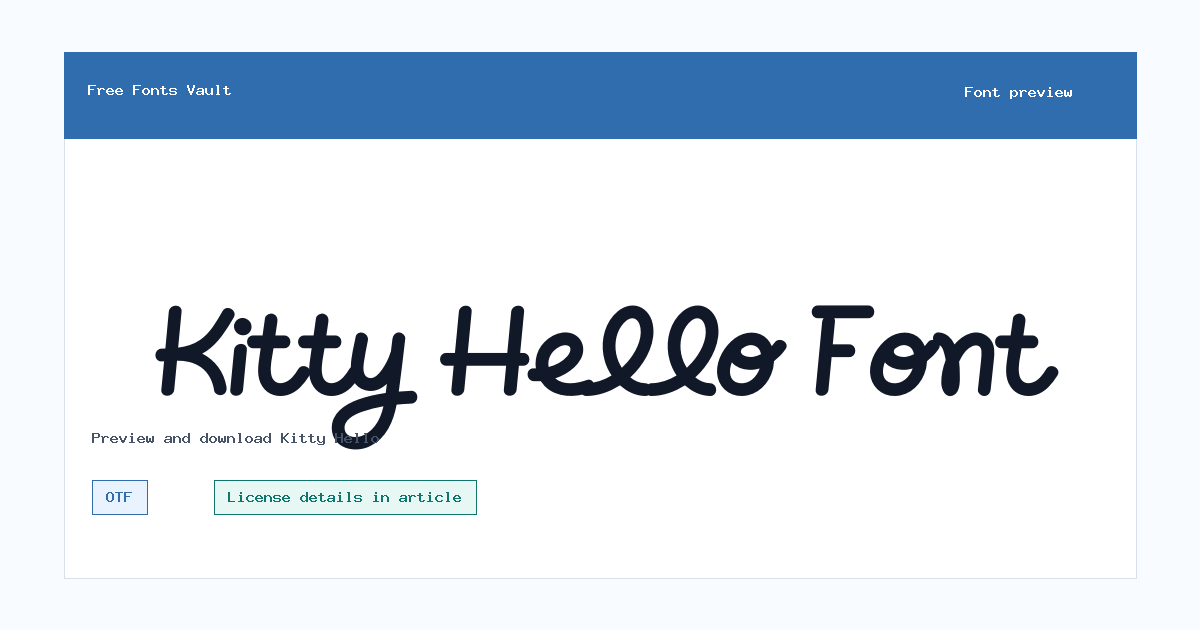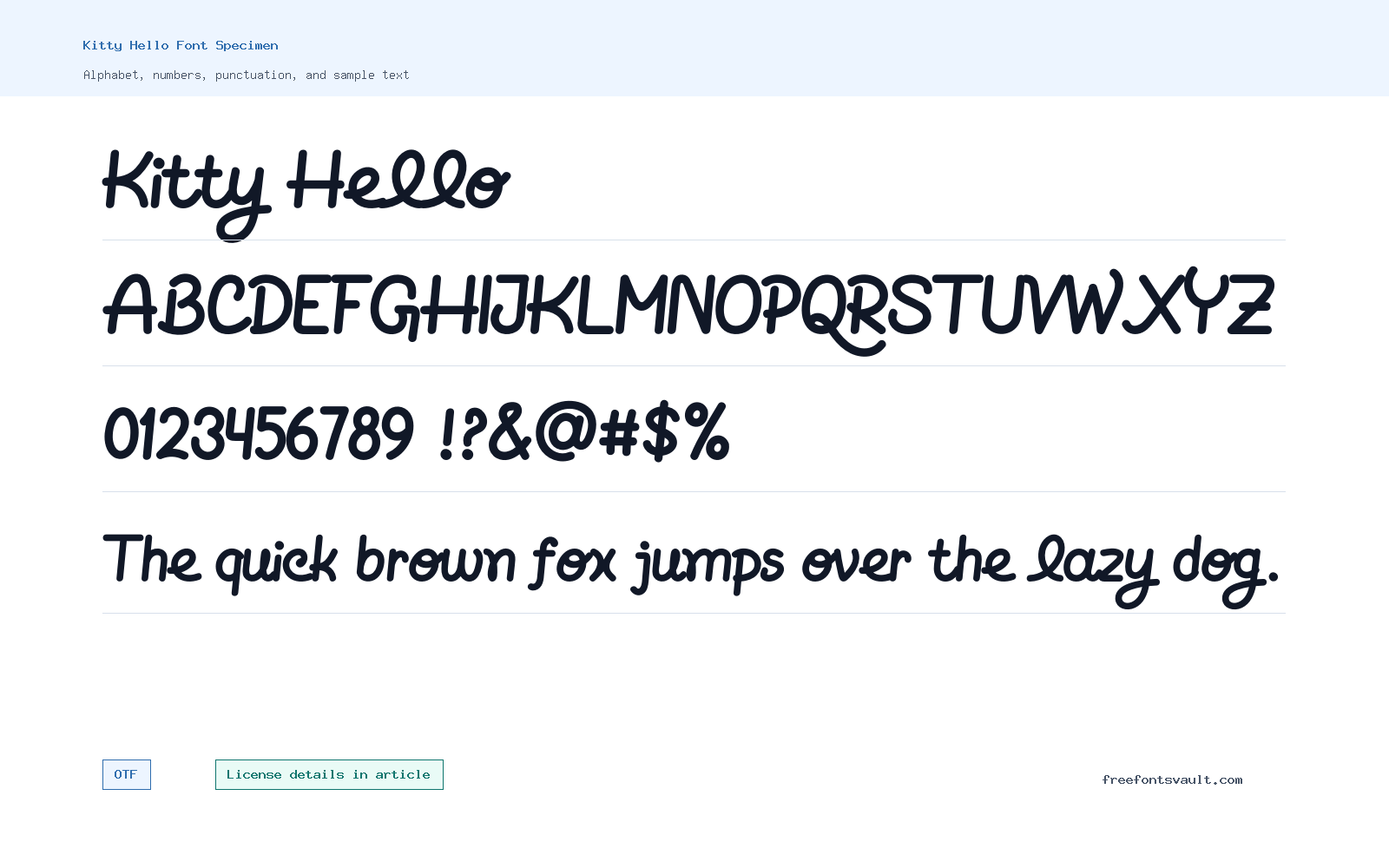
Kitty Hello
Kitty Hello Font
• Designer Abu Hasnat
• Foundry Obig Digital
Kitty Hello font.
Kitty Hello is a playful single-style OTF font for short decorative text. It works best when the words are meant to feel friendly, light, and easy to notice rather than quietly readable.
About Kitty Hello
The family includes one regular OpenType file, so it is a simple choice when you do not need a full set of weights. Use it for names, invitation titles, stickers, craft labels, small poster lines, social graphics, classroom-style art, and other short phrases where a cute display face can carry the mood. Keep the wording compact and test both uppercase and lowercase before using it in a finished layout.
Because Kitty Hello is a display font, spacing matters more than it would in a plain text face. Try the exact text you plan to use in the preview, then check whether repeated letters, punctuation, numbers, and long words still feel balanced. If the design also needs paragraphs, menus, captions, or product descriptions, pair Kitty Hello with a clean sans serif and let this font handle only the title or accent words.
• Best with short text and decorative layouts
• Works well when paired with a simpler reading font
• Cute headings, names, and title cards
• Labels, stickers, invitations, and printable crafts
• Social posts, thumbnails, and playful mockups
• Personal design experiments that need a soft display voice
Is Kitty Hello good for paragraphs?
No. It is better for short decorative text. Use a neutral font for long reading sections and keep Kitty Hello for emphasis.